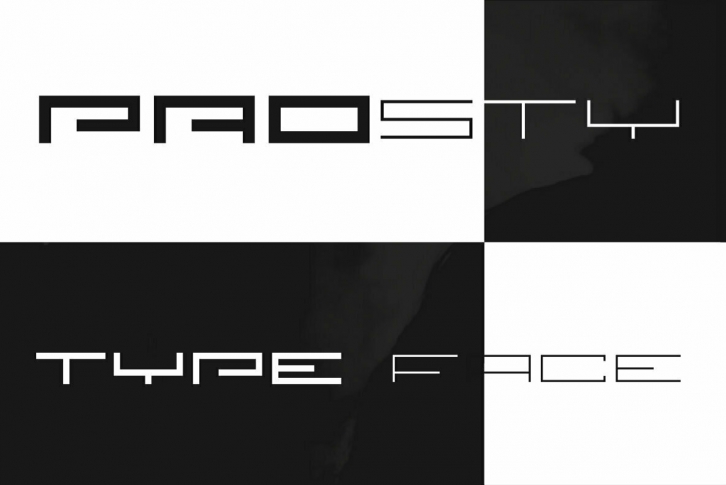
Prosty is a family of minimalistic and geometric fonts. It follows the style of other Fontsphere's forms, but goes one step further.
It contains both uppercase and lowercase characters, which makes it useful for display, titling, captions but also for composing short, intermediate and longer texts, which is a very interesting and useful combination here. It was created carefully with details in mind.
Prosty contains a large number of characters as well as multilingual support.